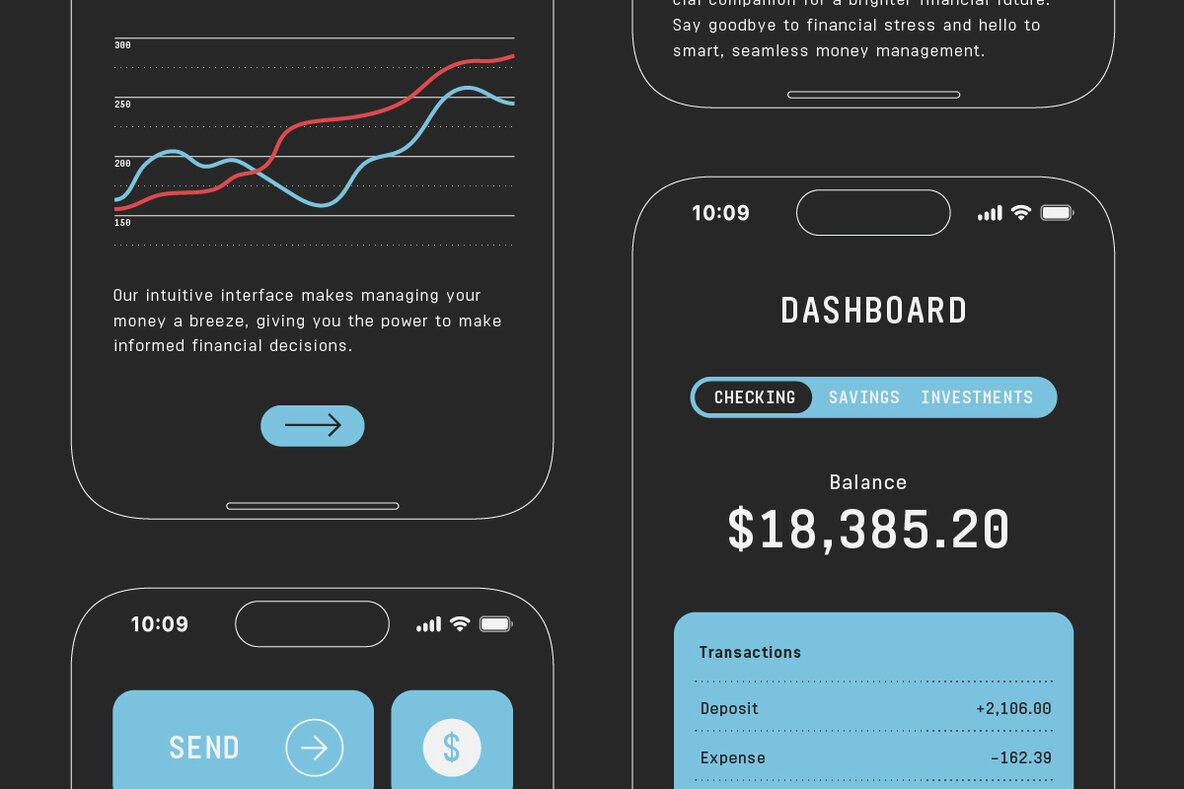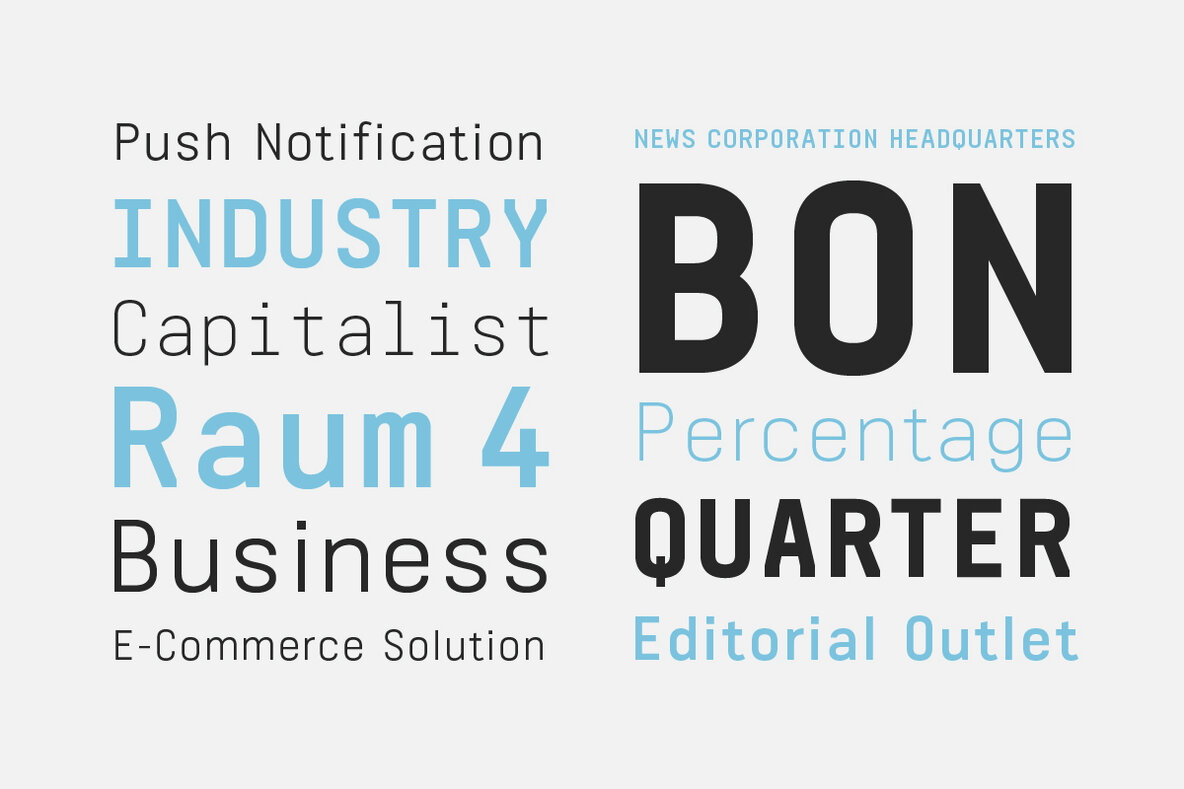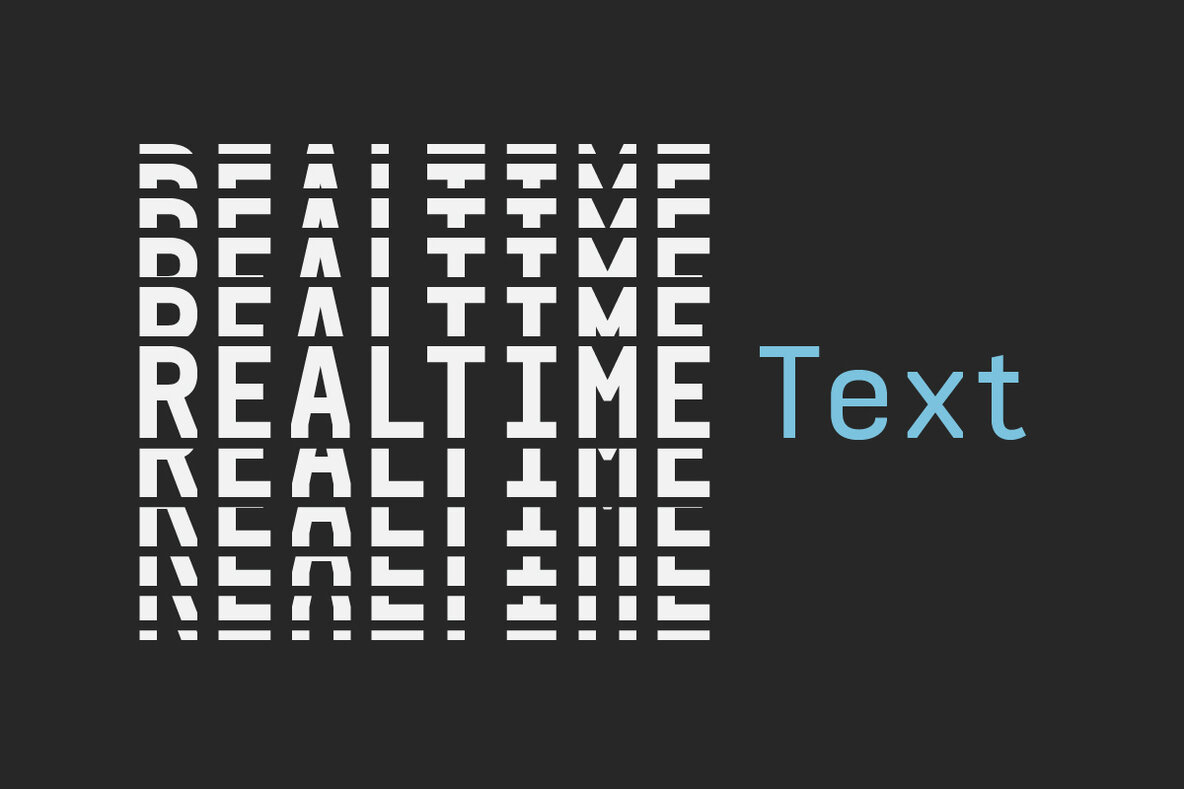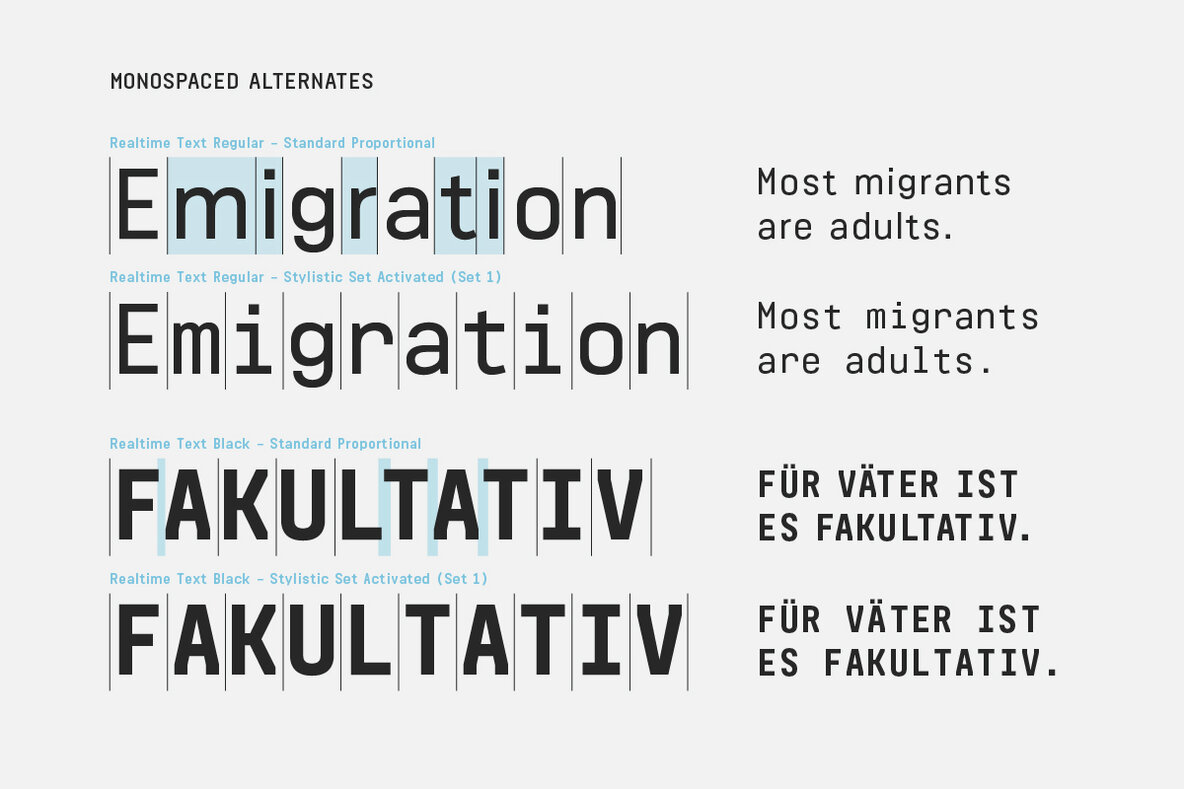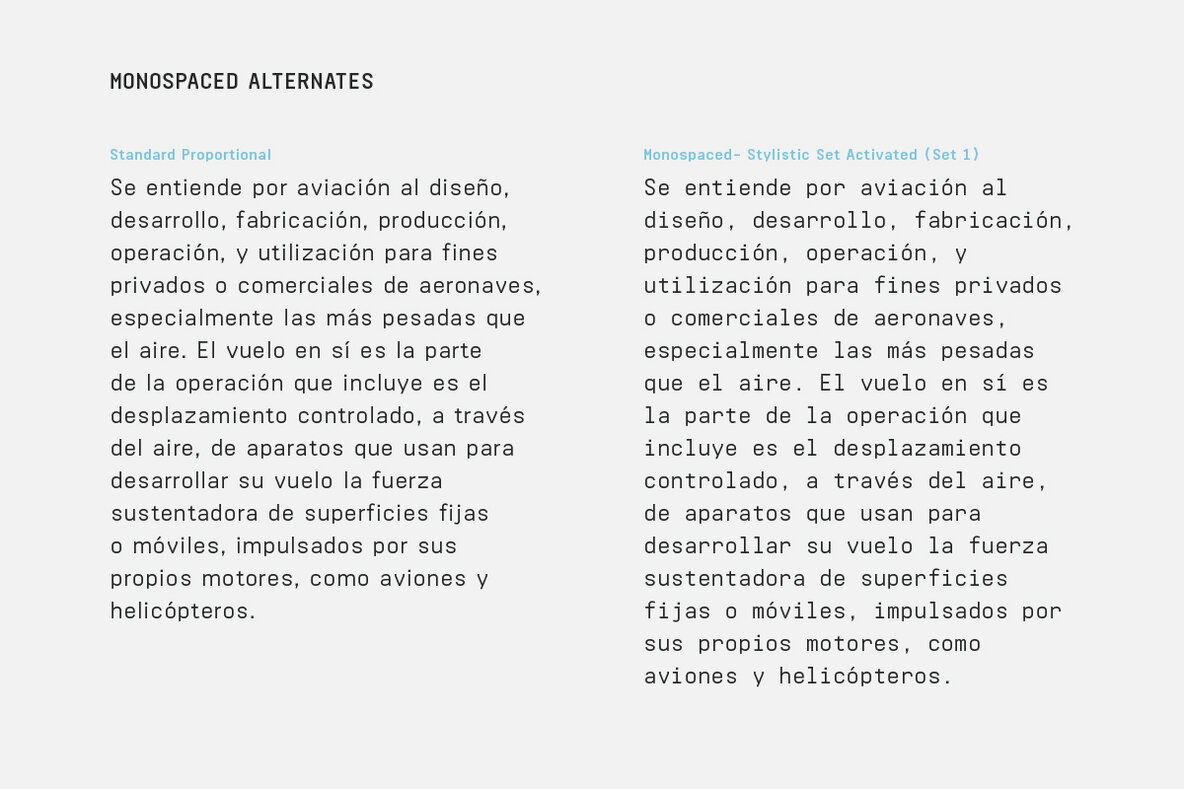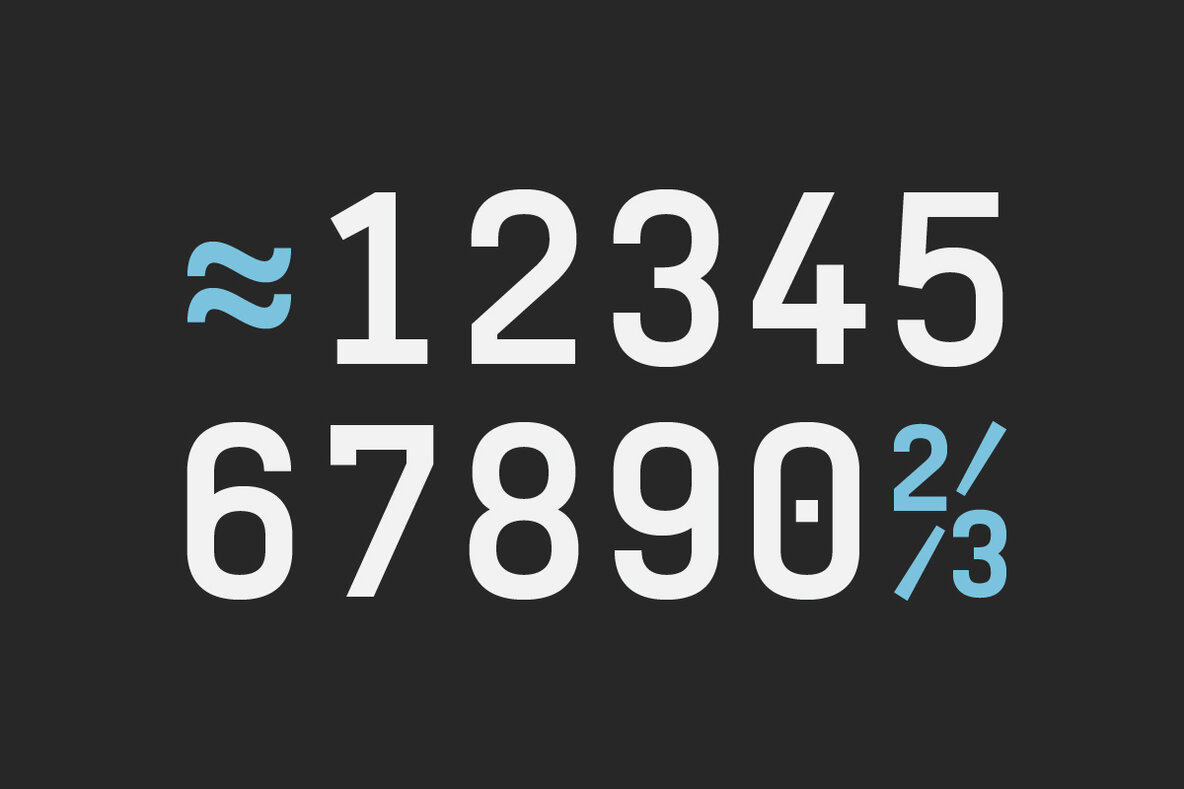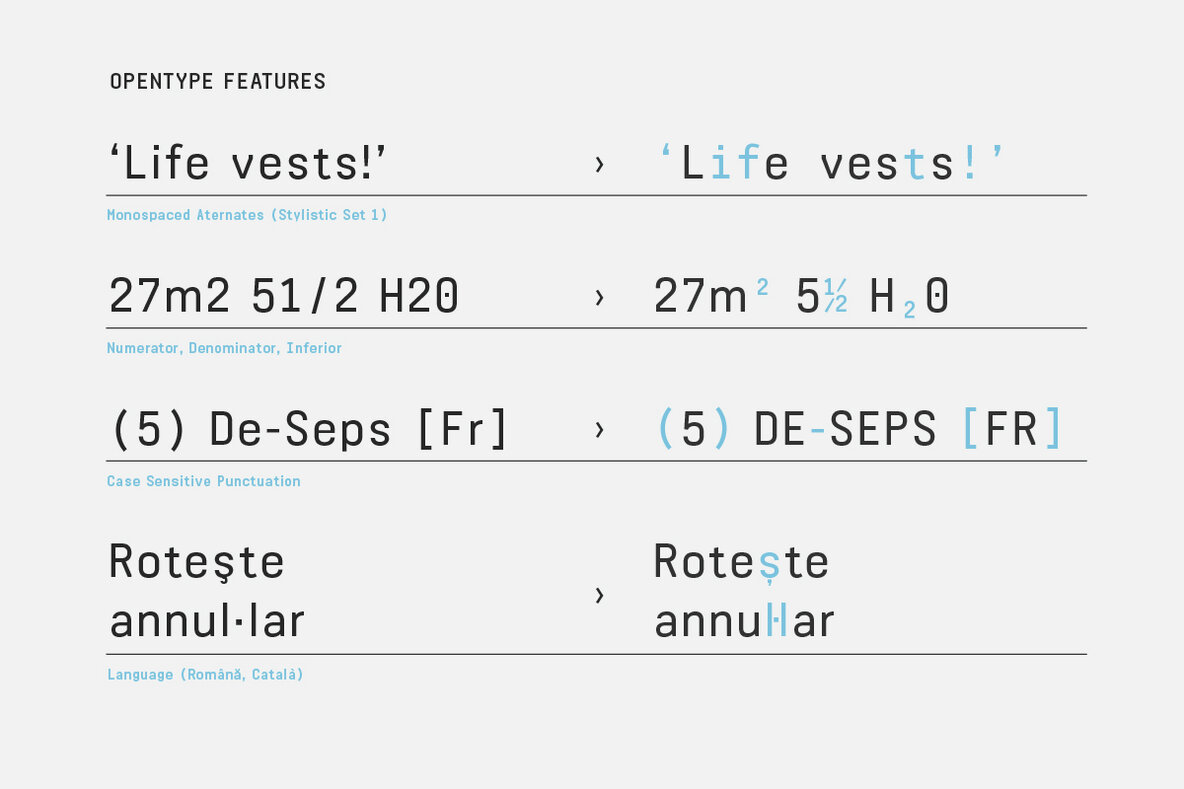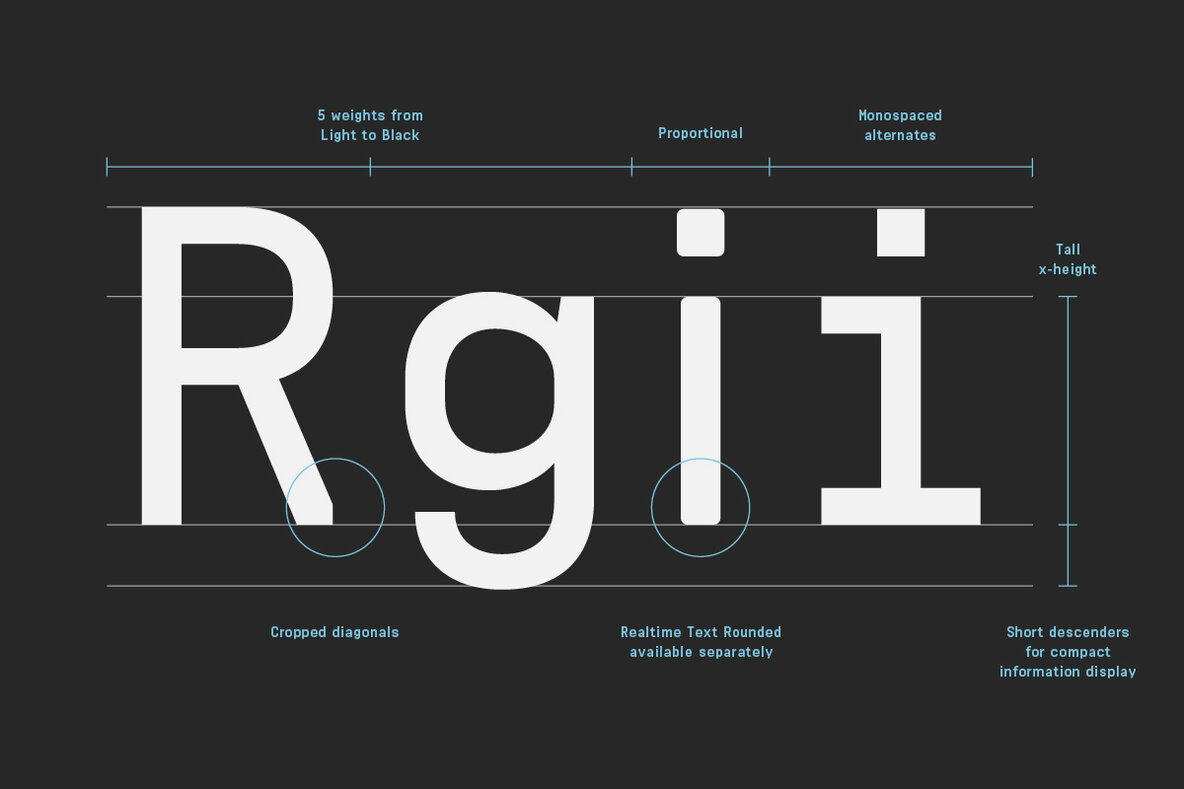
Realtime Text is the proportional alternative to the monospaced Realtime type family. Nevertheless Realtime Text includes a monospaced design already built into the font. It is employable through OpenType by activating alternate characters.
Realtime Text is a technical yet friendly design with details that serve function and visual impact alike and lends itself to tabular designs, sturdy columns and tidy layouts. It comes in five weights, from light to black, and with a character set that covers over 200 latin languages.